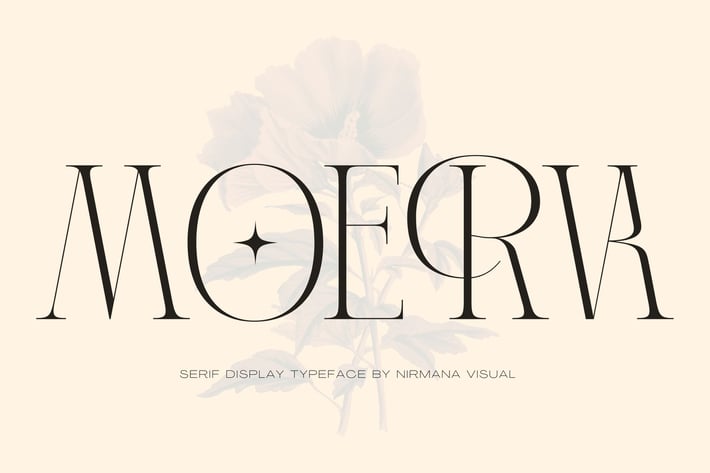
Moerva - Vintage Font
Moerva, Serif Display Typeface.
Moerva offers beautiful typographic harmony for a diversity of design projects, including logos & branding, social media posts, advertisements & product designs.